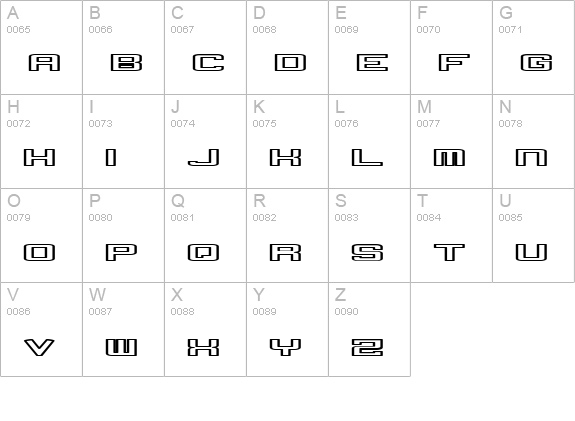
pusher Font Details
Pusher Font is a modern and sleek typeface that exudes a sense of sophistication and elegance. Its clean lines and minimalist design make it perfect for a wide range of projects, from branding to editorial design. The font strikes the perfect balance between being stylish and easy to read, making it a versatile choice for both digital and print applications. The best part about Pusher Font is that it is available for free download at FontsMarket.com. This means that you can easily add this elegant font to your collection without any cost, making it a valuable resource for designers and creatives looking to enhance their projects with a touch of class. Whether you're working on a website, poster, or logo design, Pusher Font is sure to elevate your work and leave a lasting impression.